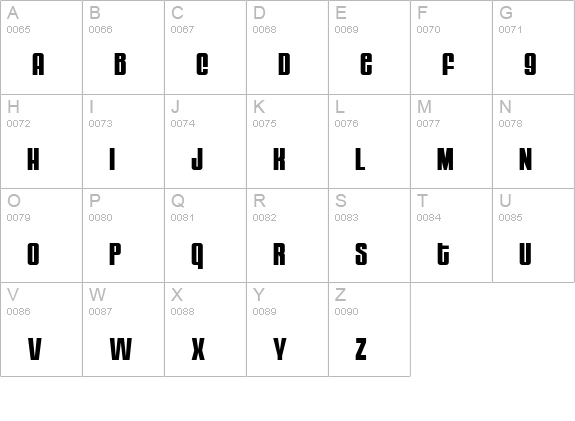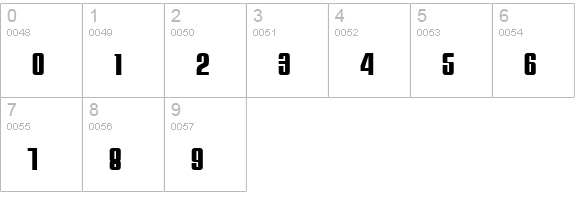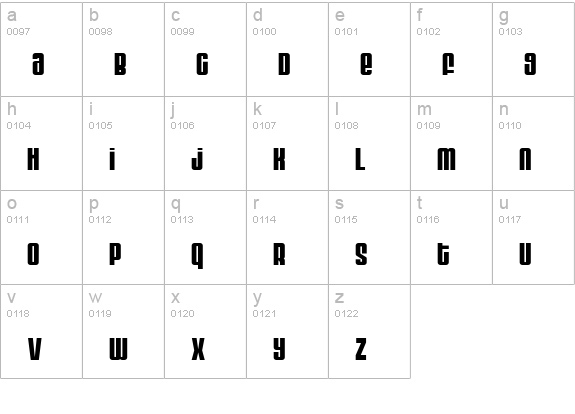
Moog Font Details
Introducing Moog font, a sleek and modern typeface that exudes sophistication and style. With its clean lines and elegant curves, Moog is the perfect choice for projects that demand a professional and polished look. Whether you're designing a logo, creating a presentation, or crafting a brand identity, Moog font is sure to make a lasting impression. The best part? Moog font is completely free to download at FontsMarket.com. That's right, you can access this stunning typeface at no cost and elevate your design projects with ease. Don't miss out on the opportunity to add Moog font to your collection and take your creations to the next level. Download Moog font today and let your creativity soar.